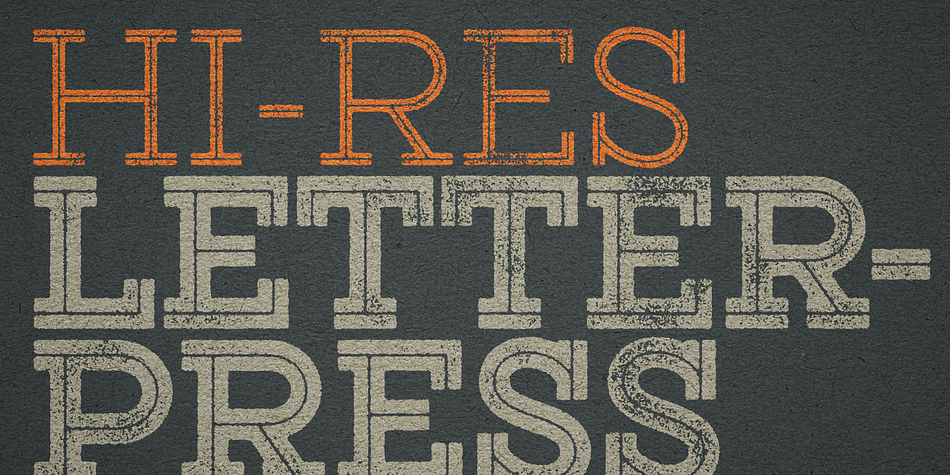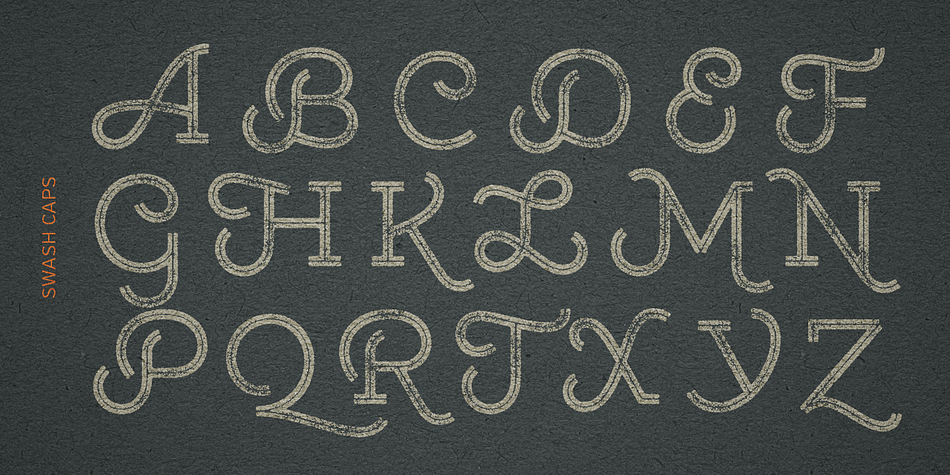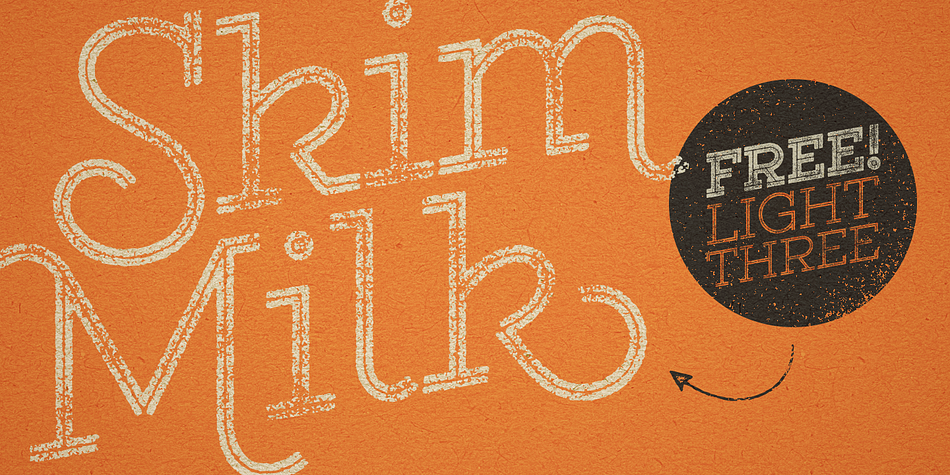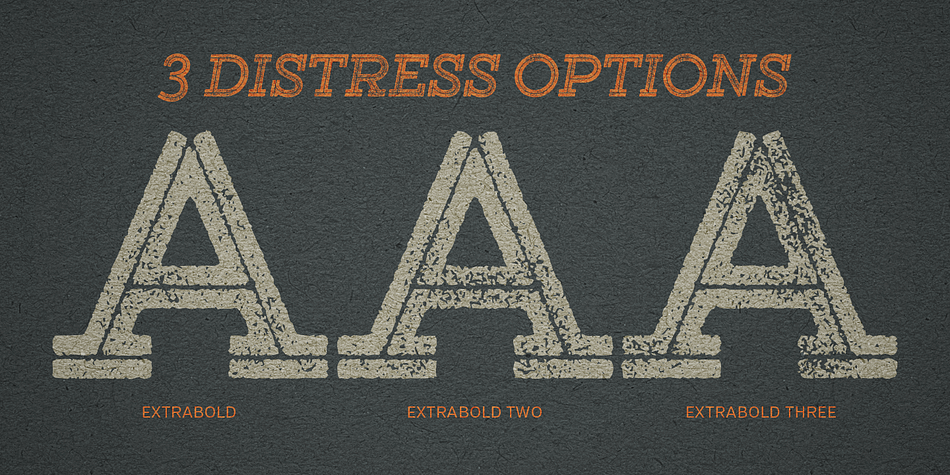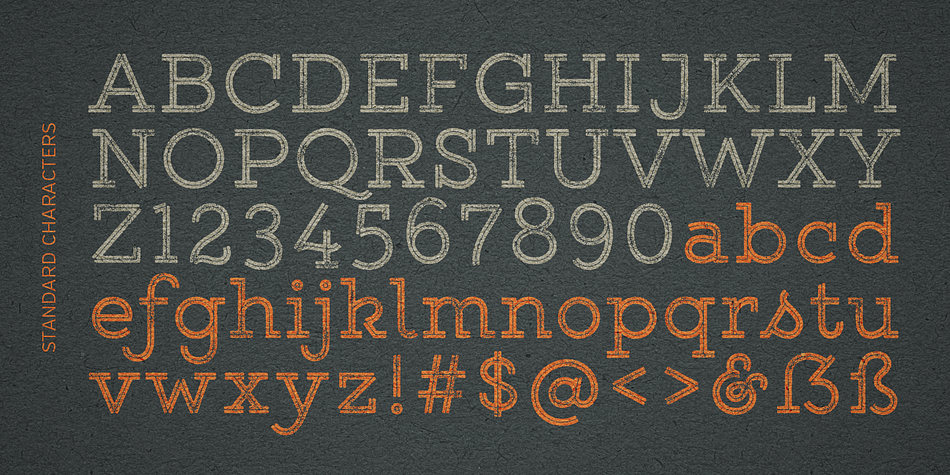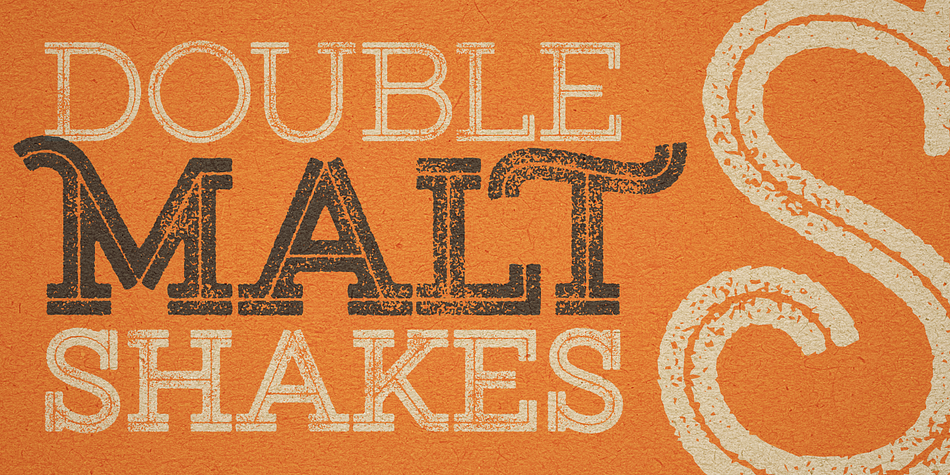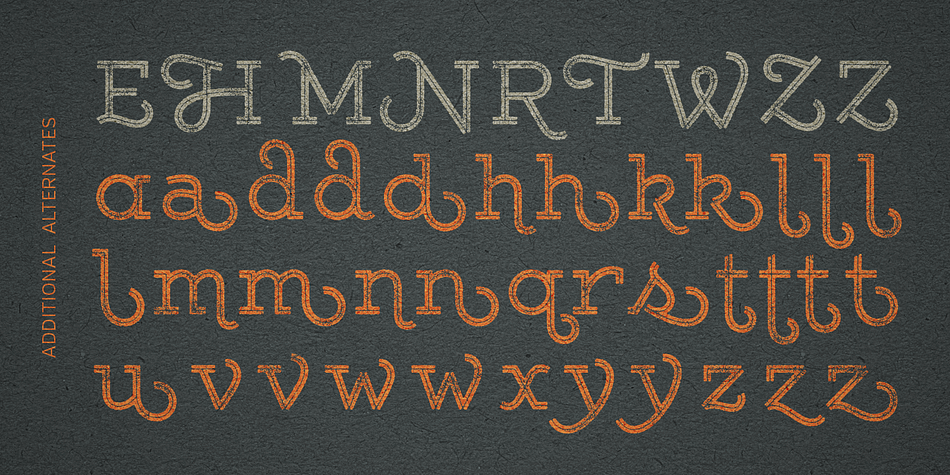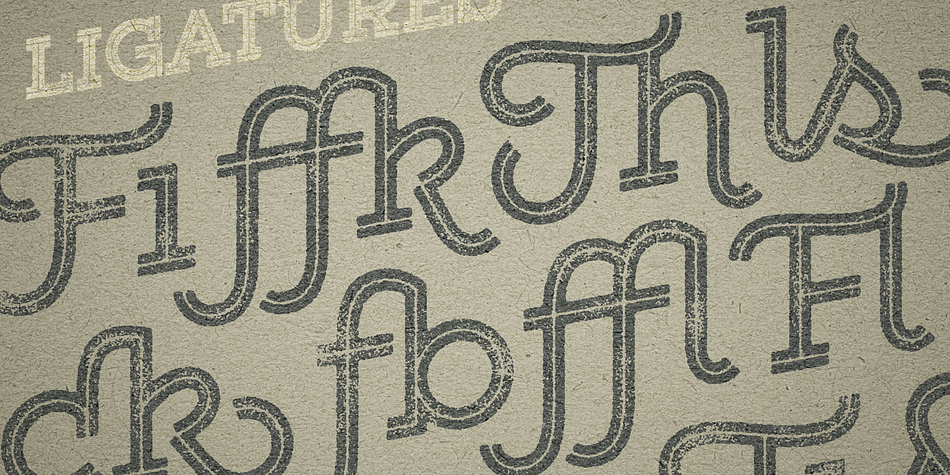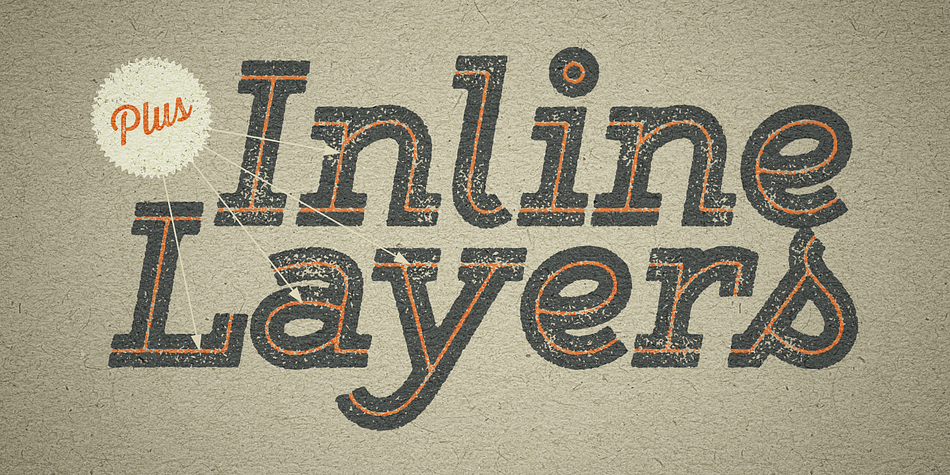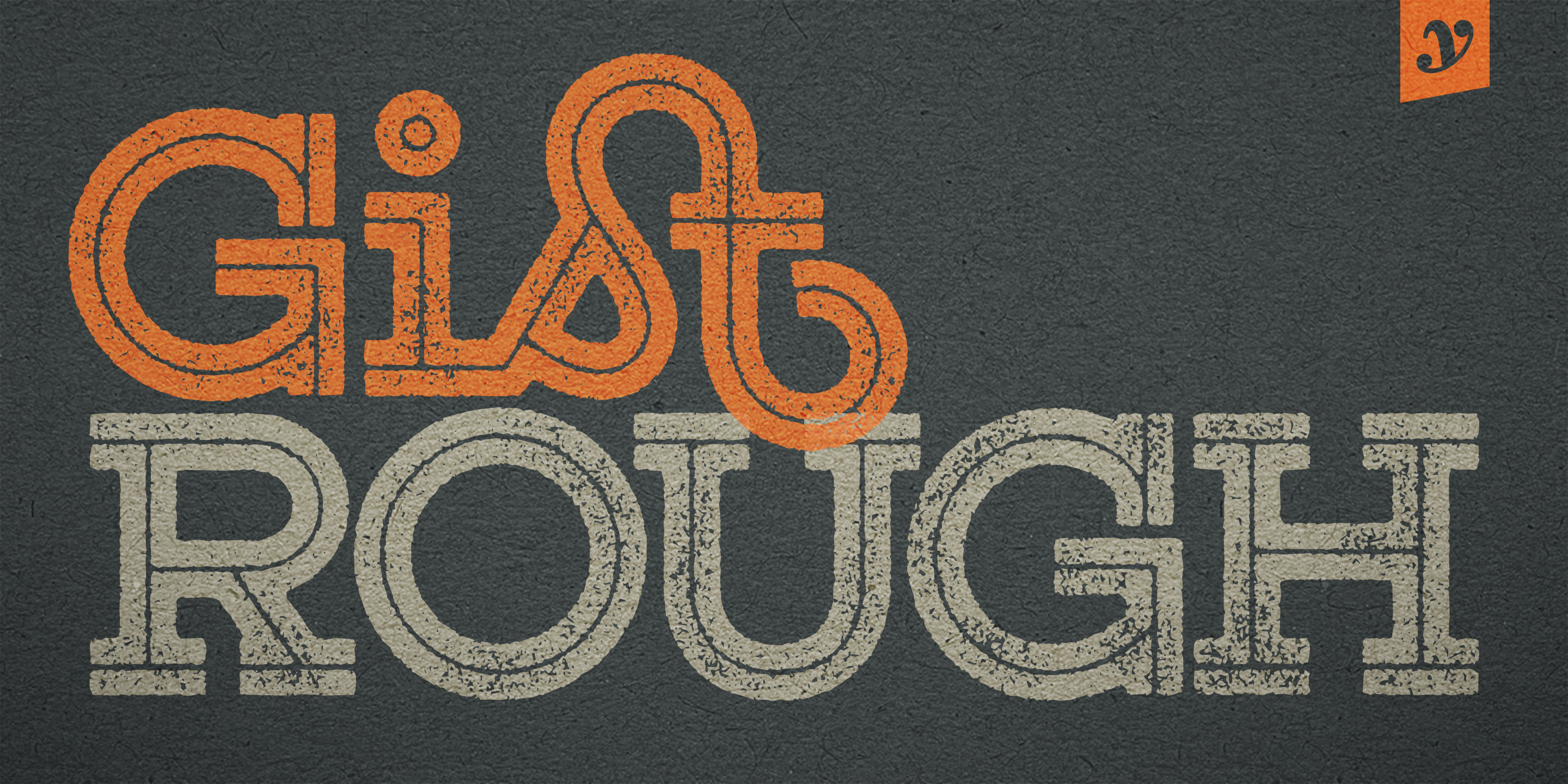
Gist Rough is a grunge and display slab font family. This typeface has forty styles and was published by Yellow Design Studio.
Gist Rough is the letterpress version of Gist from Yellow Design Studio. It’s warm and weathered with a retro yet modern vibe. Every weight includes 3 versions with varying levels of texture which can be used individually or mixed to taste. It has highly detailed texture and looks great even at very large sizes.
With 627 glyphs per weight, Gist Rough is highly customizable…either keep it simple with the base character set or use ligatures, alternates and swashes for extra flair. All-caps typesettings have an especially retro edge. Also included are line layers for adding color to the inline areas. As a bonus, try Gist Rough Light Three for free!